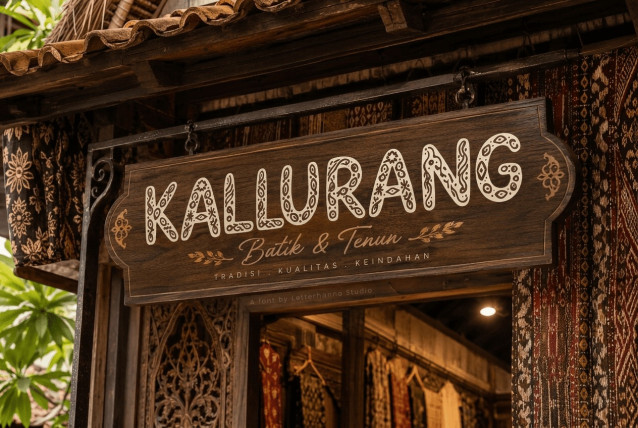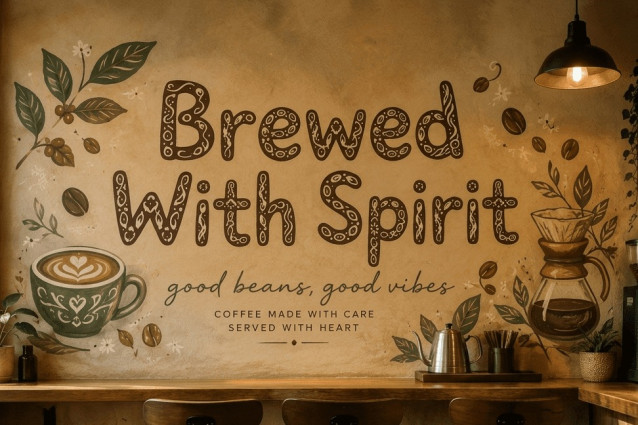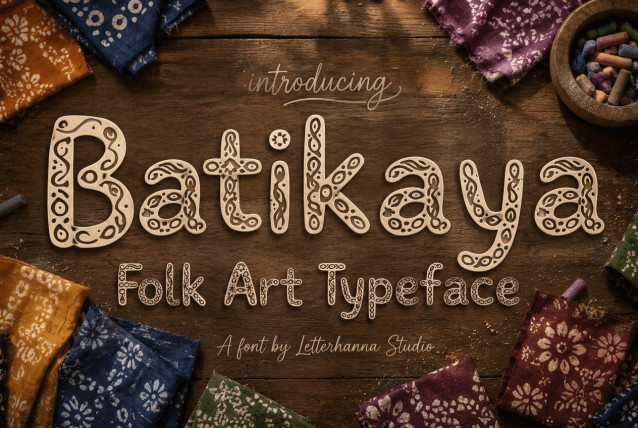
Batikaya: A Folk-Art Font That Turns Letters Into Living Art
Every culture has a visual language before it has an alphabet — a language made of dots, waves, leaves, and spirals passed down through fabric, wood, and stone. Batikaya, a bold new folk-art font, was built to carry that language into modern design. Instead of plain, flat letterforms, each character in Batikaya is filled with hand-drawn ornamental patterns, turning the simple act of typing a word into something closer to weaving a small piece of textile art.
If you have ever run your fingers over a piece of batik cloth and noticed how the pattern changes direction, doubles back, and repeats in unexpected rhythms, you already understand the spirit behind this typeface. Batikaya borrows that same rhythm and translates it into thick, rounded letterforms filled edge to edge with white linework on solid black. The result sits somewhere between a hand-lettered font and a piece of folk illustration — readable enough to work as a headline, decorative enough to stand alone as artwork.